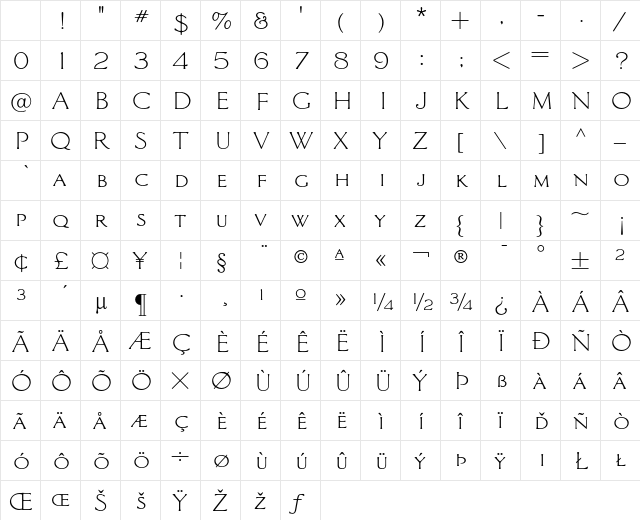
Complete ArchitectVarityper Regular glyph index. Displaying only characters natively supported by ArchitectVarityper Regular font.
ArchitectVarityper is a composed and adaptable typeface that performs quietly and consistently across a wide range of design contexts.